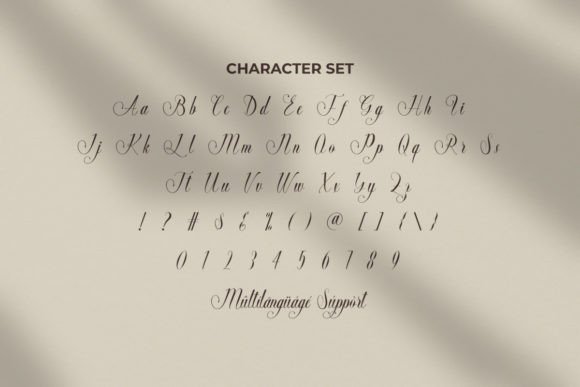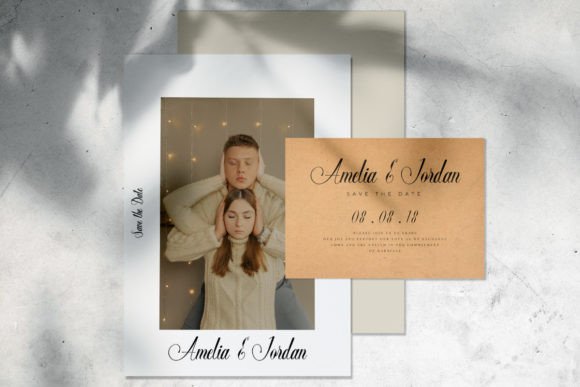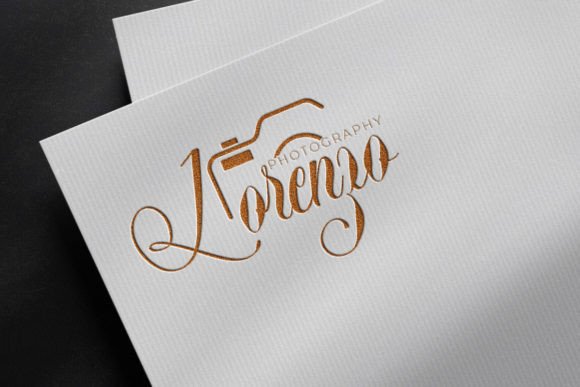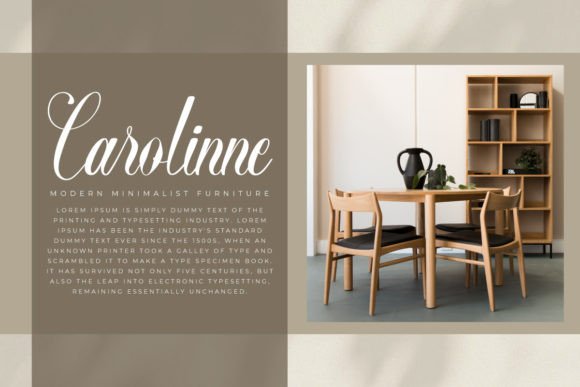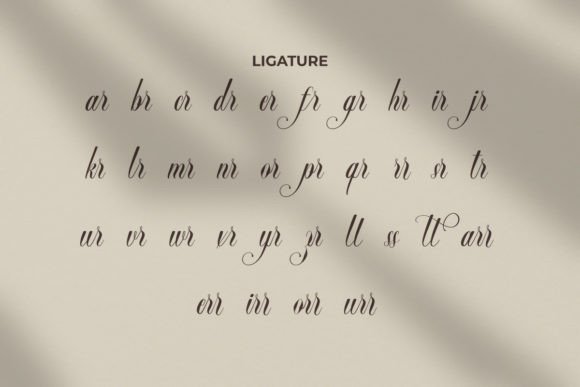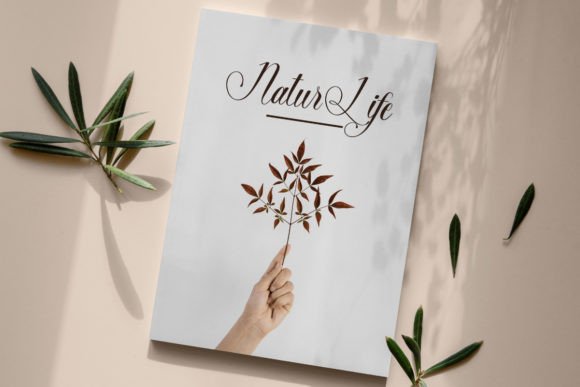
Introducing Anna Audrey Font: The Sweet and Cursive Handwritten Font for Your Design Needs
Are you a designer or crafter looking for a font that can add a touch of elegance and romance to your projects? Look no further than the Anna Audrey Font. This beautiful, handwritten font is perfect for a variety of design ideas and is sure to bring a smile to your customers’ faces. In this article, we’ll take a closer look at the Anna Audrey Font and explore its features, benefits, and uses.
A Sweet and Cursive Handwritten Font
The Anna Audrey Font is a sweet and cursive handwritten font that is designed to bring a touch of joy and romance to your designs. Its gentle, flowing lines and delicate curves make it perfect for creating beautiful and feminine designs. Whether you’re working on a wedding invitation, a branding project, or a digital product, this font is sure to add a touch of elegance and sophistication.
Perfect for a Variety of Design Ideas
One of the best things about the Anna Audrey Font is its versatility. This font can be used for a wide range of design ideas, from:
- Digital products, such as printables and planners
- Signs and banners
Whether you’re working on a personal project or a client’s, the Anna Audrey Font is sure to bring a touch of beauty and elegance to your designs.
Another great feature of the Anna Audrey Font is that it is PUA (Private Use Area) encoded. This means that you can access all the glyphs and ligatures with ease, making it simple to create beautiful and unique designs. With PUA encoding, you can:
- Easily access swashes and ligatures
- Create custom designs and phrases
The Anna Audrey Font offers a range of benefits for designers and crafters, including:
- Elegance and sophistication: Add a touch of elegance and sophistication to your designs with this beautiful, handwritten font.
- Versatility: Use the font for a wide range of design ideas, from wedding invitations to digital products.
- Easy to use: The font is PUA encoded, making it simple to access all the glyphs and ligatures.
- Time-saving: With its beautiful and feminine design, the Anna Audrey Font can save you time and effort in creating unique and custom designs.
How to Use the Anna Audrey Font
Here are some tips for using the Anna Audrey Font:
- Take advantage of PUA encoding: Use the PUA encoding to access all the glyphs and ligatures and create beautiful and unique designs.
In conclusion, the Anna Audrey Font is a beautiful and versatile handwritten font that is perfect for designers and crafters. Its sweet and cursive design makes it ideal for adding a touch of elegance and romance to a wide range of design ideas. With its PUA encoding, you can easily access all the glyphs and ligatures and create unique and custom designs. Whether you’re working on a personal project or a client’s, the Anna Audrey Font is sure to bring a touch of beauty and sophistication to your designs.